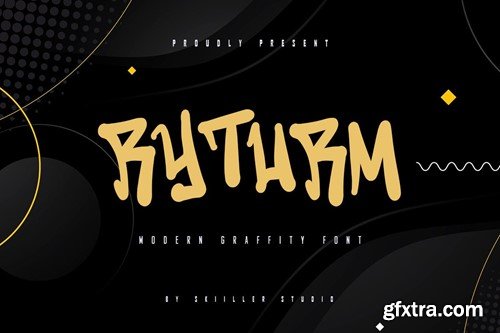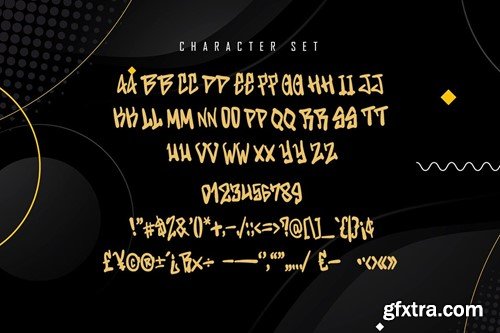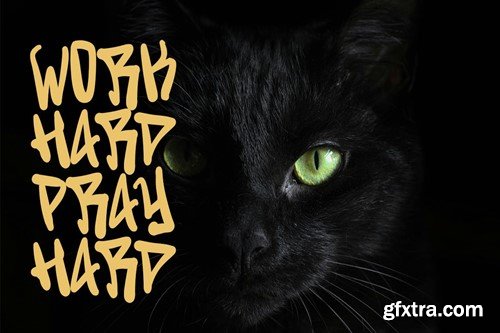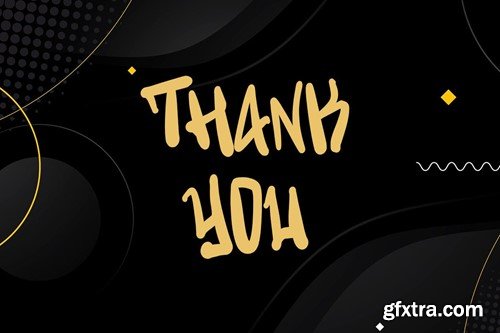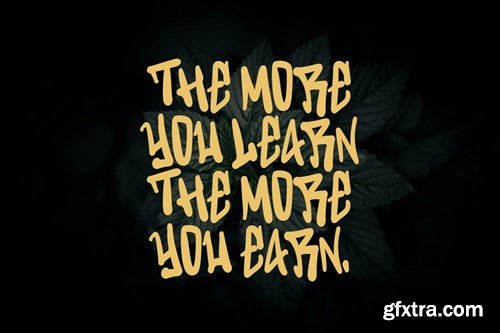
瑞图姆 - 现代涂鸦字体 P9SLC37
Ryturm - Modern Graffiti Font
Ryturm a Graffity font. This font will very suitable for your fun project like children party, cute quotes, or any cute fun related projects. Grab it now ! What's include: